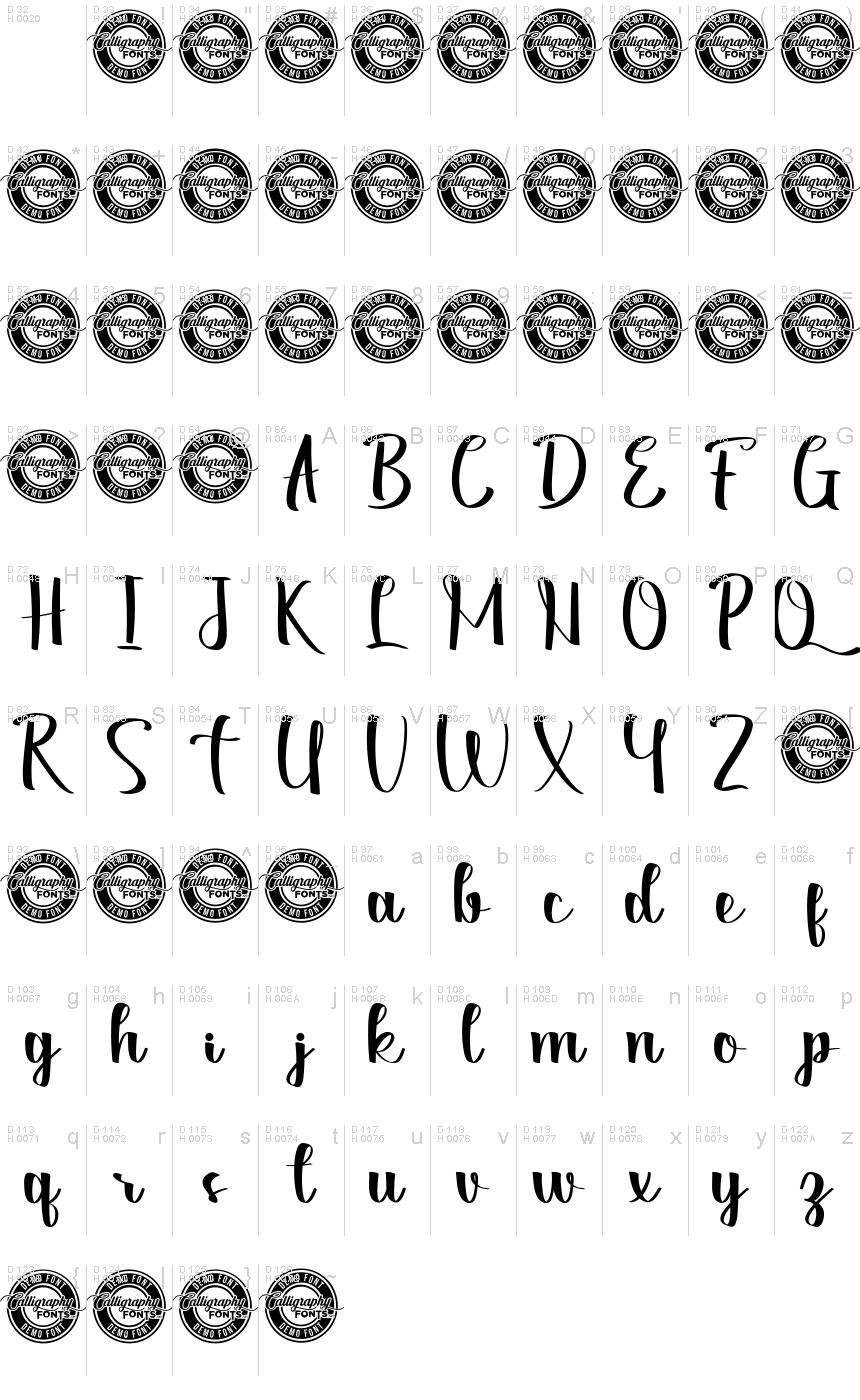
Anthonyela Demo
The Anthonyela font by Calligraphy Fonts captivates with its elegant calligraphic style, evoking a sense of sophistication and creativity. Its flowing, handwritten charm is perfect for adding a personal touch to your design projects. With its strikingly bold and graceful strokes, Anthonyela stands out in wedding invitations, logo designs, and branding that demands an artistic flair. This free font offers a harmonious balance of form and function, making it versatile yet distinctive.